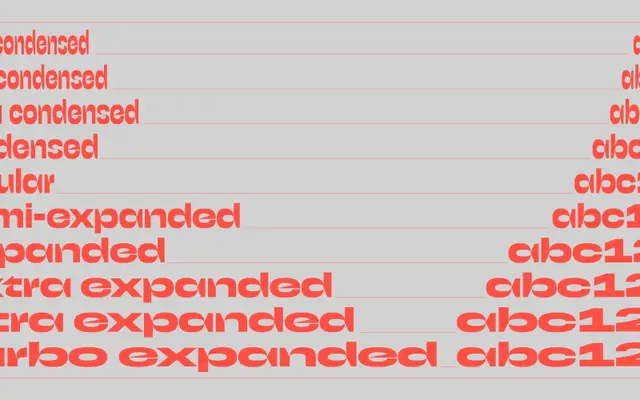
Bacalar
A geometric display type family drawn from vernacular bus signage in Mexico's Yucatan peninsula, spanning ten width variants from Turbo Condensed to Turbo Expanded.
Designed by Mateusz Machalski and inspired by the lettering found on colectivo buses in the Yucatan peninsula, the family pairs geometric construction with thin details and reversed contrast for a mechanical, brutalist character. Ten static width styles plus a variable font cover an unusually broad range, from tightly compressed to aggressively expanded. Updated to Pro in November 2025, it now includes Cyrillic and Greek alongside an extensive Latin language roster.
Described as brutalist and mechanical with geometric forms, very thin details and reversed contrast, drawing from vernacular bus signage typography. Its extreme width range and display character place it firmly in the display category.